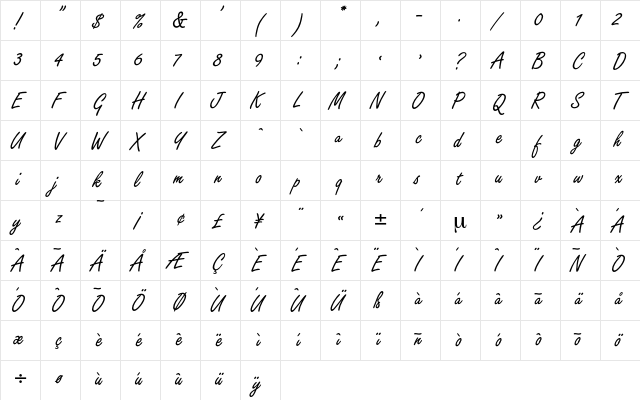
Arabella Regular
Design Context for Arabella Typeface
Arabella takes a measured approach to typography — its balanced proportions and neutral character make it a reliable workhorse for both digital and print work.
Pro Tip: Use Arabella in both headline and body roles to test its range before committing to a single application.